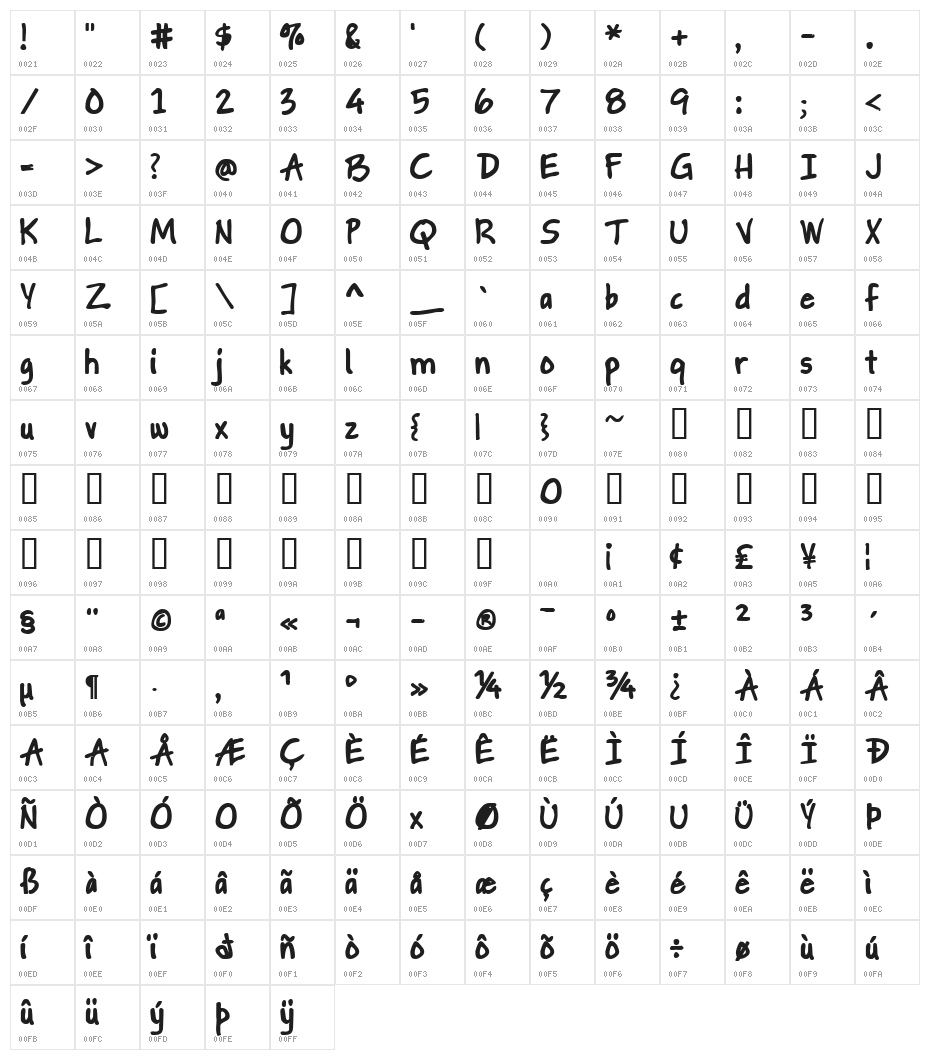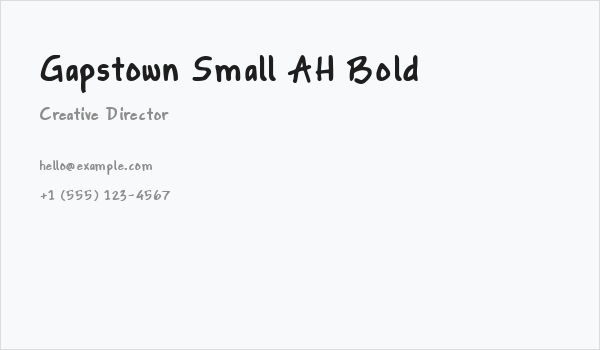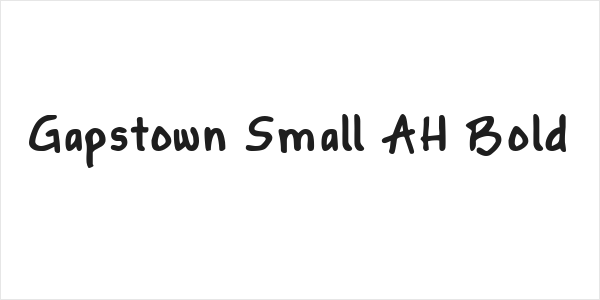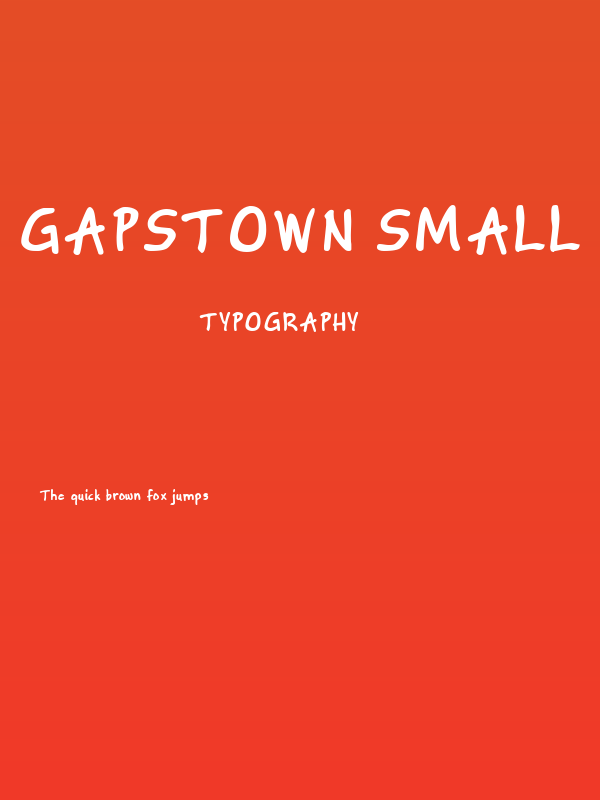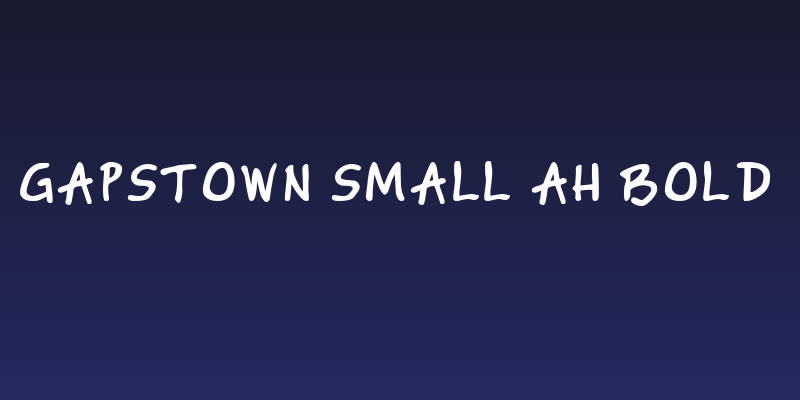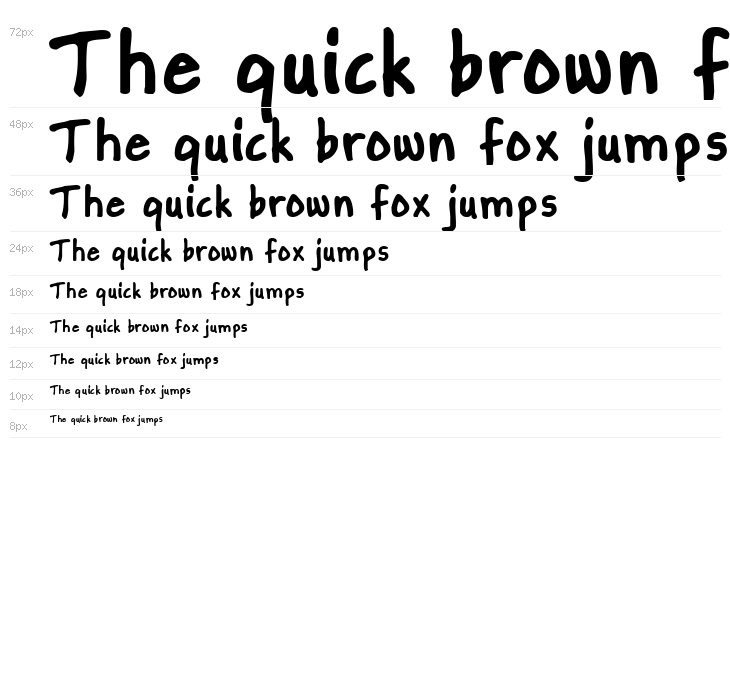
Gapstown Small AH Bold Font
Gapstown Small AH Bold Description
This font features a playful and bold handwritten style, characterized by its rounded and slightly irregular letterforms. The uppercase and lowercase letters maintain a consistent thickness, giving the font a cohesive and friendly appearance. The numerals and special characters are designed to match the overall style, ensuring uniformity across all glyphs. The font's informal and approachable design makes it suitable for projects that aim to convey warmth and creativity.
| Overall Style | Playful, Informal |
| Use Case | Headlines, Logos, Casual Text |
| Proposed Projects | Ideal for children's books, greeting cards, playful branding, and casual invitations. |